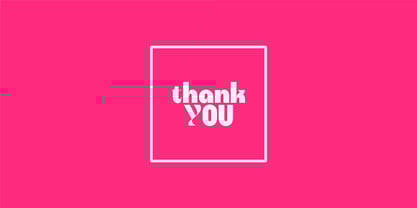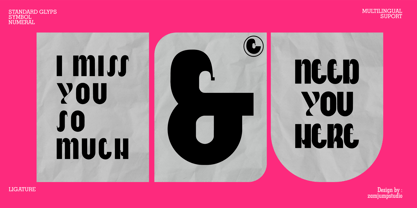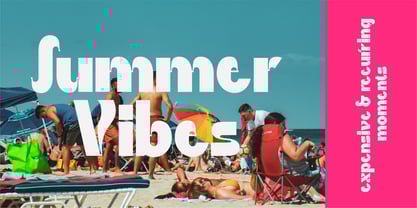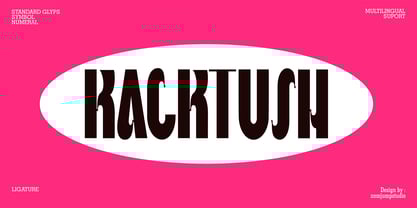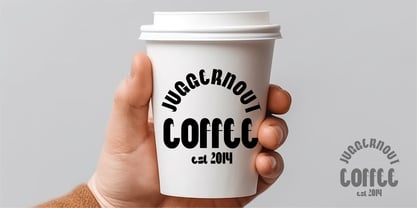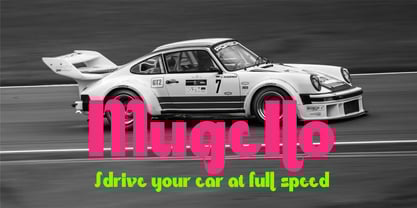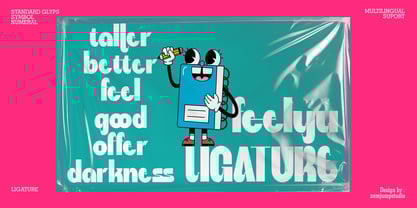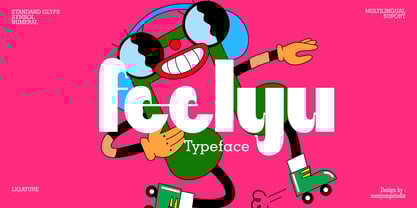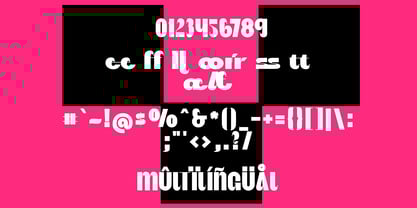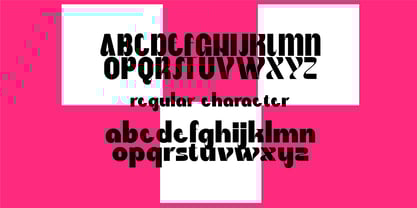
Feelyu
by Zamjump
The Feelyu Font Family was designed by Zamjump, Ahmad Zamzami and published by Zamjump. Feelyu contains 1 styles. More about this family
Feelyu is a unique and versatile modern sans display font. With its clean and simple style, this font brings a cheerful and friendly touch to your designs. Feelyu also includes stylish ligature features, making it a great choice for a wide range of creative projects, including logos, product labels, posters, and more. Whether you're aiming for a bold statement or a fun and inviting look, Feelyu is the perfect font to enhance your design aesthetics.
Designers: Zamjump, Ahmad Zamzami
Foundry: Zamjump